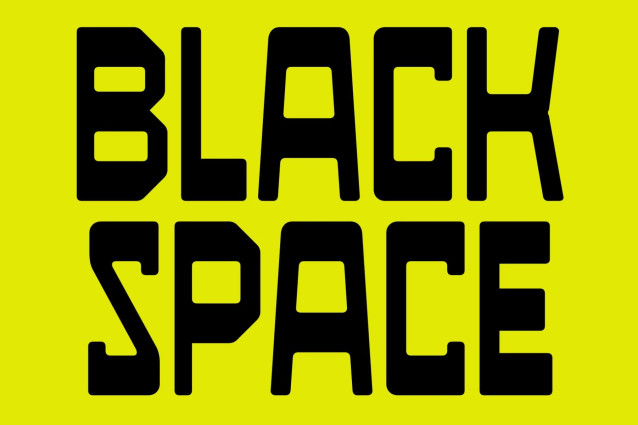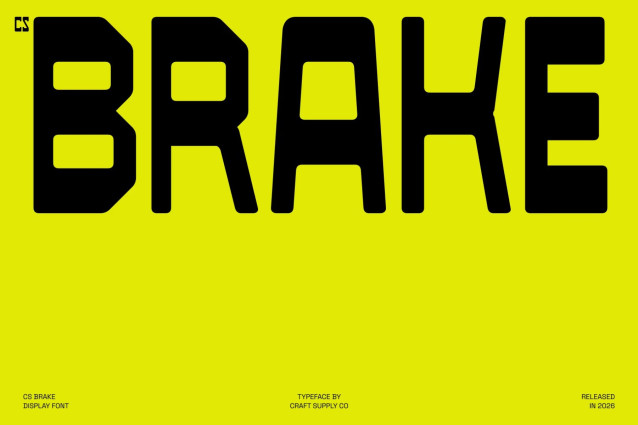
CS Brake – Reverse Contrast Display Font: Where Industrial Strength Meets Bold Impact
Heavy Letterforms with Confident Proportions
This is a reverse contrast display font featuring heavy industrial forms and bold, confident proportions. Its unconventional stroke contrast creates a powerful visual rhythm, while the sturdy construction delivers exceptional presence in every composition. Designed for maximum visibility, it makes headlines and branding impossible to overlook.
Rugged Industrial Style with Modern Precision
Inspired by industrial design and engineered aesthetics, its combines robust geometry with clean construction to create typography that feels durable, reliable, and contemporary. Its solid forms communicate strength and authority, making it an excellent choice for projects that require a commanding visual identity.
High-Impact Typography for Powerful Communication
By blending reverse contrast styling with bold industrial proportions, that creates a distinctive display typeface that balances originality with readability. Its memorable structure gives logos, headlines, and brand marks a strong visual foundation while maintaining a clean, modern appearance. The result is typography that projects confidence, performance, and lasting impact.